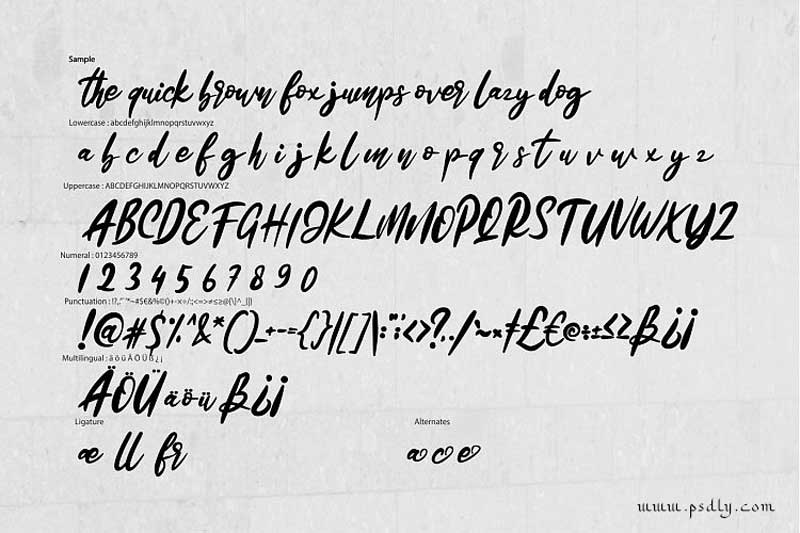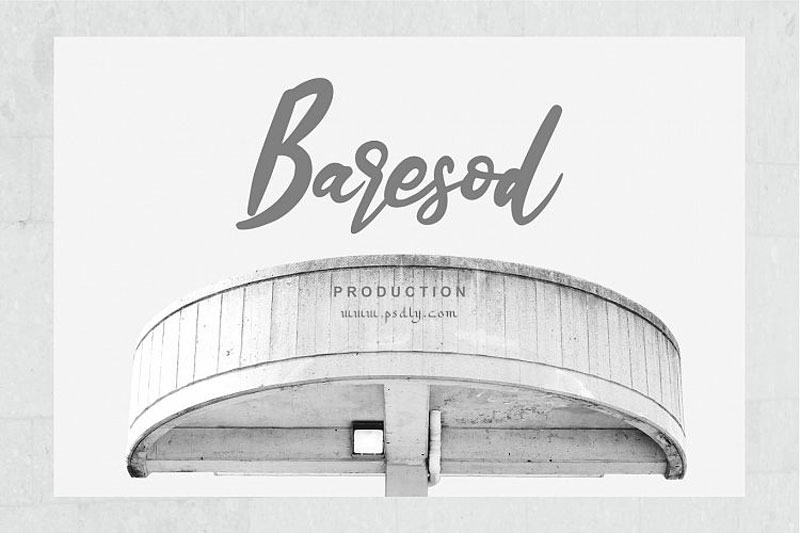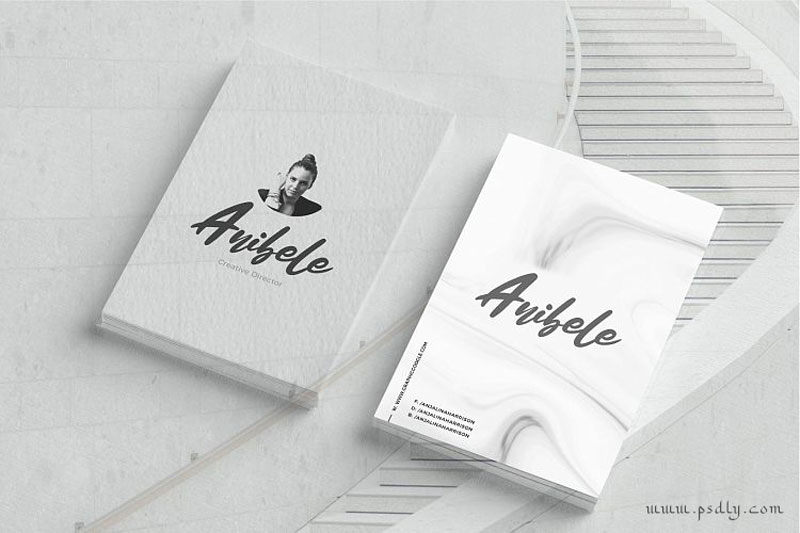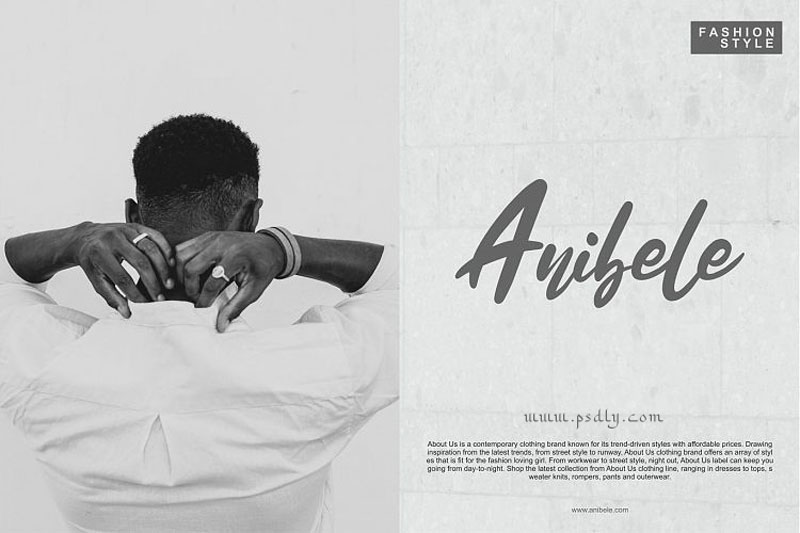
Kaduta | Dancing Script Font
Kaduta | Dancing Script Font with a calligraphy style, So beautiful on invitation like greeting cards, branding materials, business cards, quotes, posters, and more. Also checkout Matody Font.
• Tons of glyphs
• Alternates and Ligatures